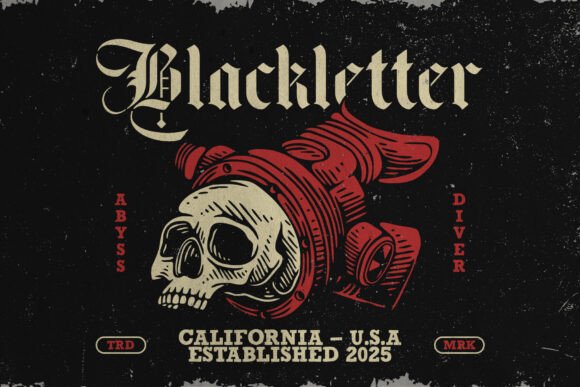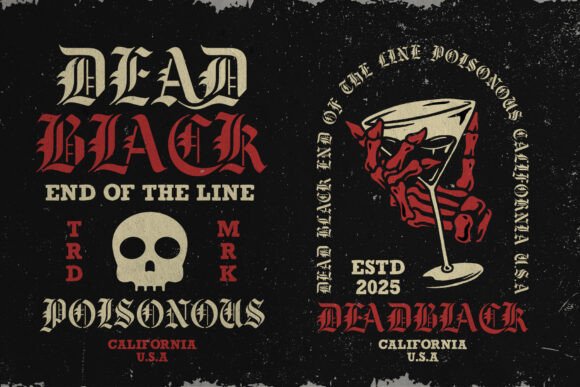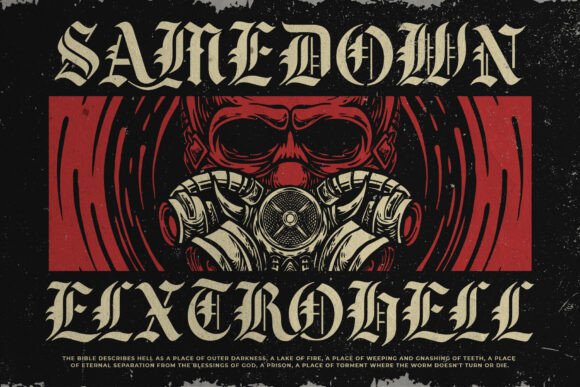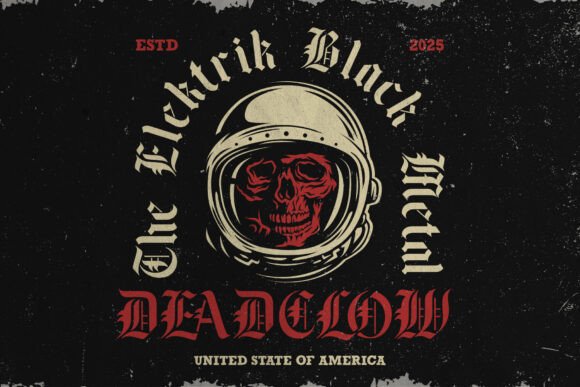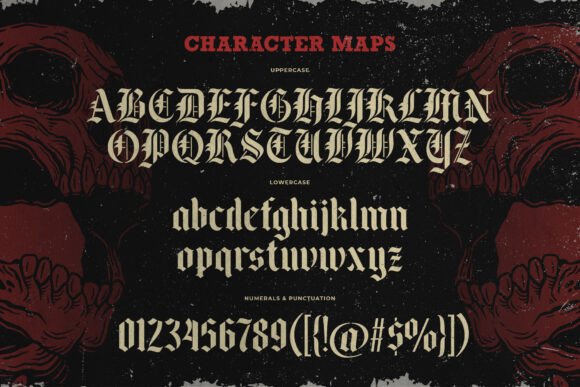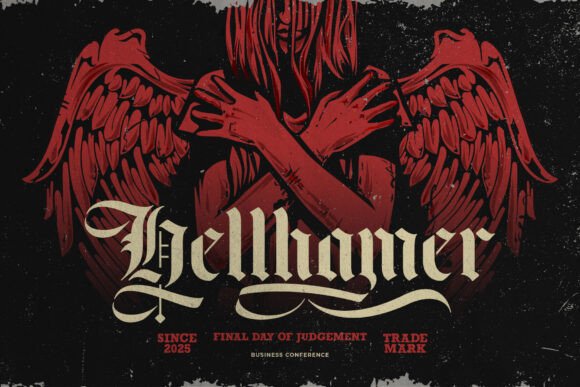
Unleash the Power of Black Face: A Bold Blackletter Stencil Typeface
In the world of typography, few fonts evoke the same level of drama and elegance as blackletter typefaces. Among these, Black Face stands out—a meticulously crafted blackletter stencil typeface that seamlessly blends historical sophistication with modern boldness. Designed for creators who dare to stand out, Black Face is the perfect choice for a variety of projects, from tattoos and branding to posters, album covers, and apparel.
A Brief History of Blackletter Typefaces
Blackletter typefaces have a rich history dating back to the Middle Ages. Characterized by their dramatic, ornate letterforms, these fonts were originally used for illuminated manuscripts and later became a staple of Gothic architecture and literature. Over time, blackletter typefaces evolved, influencing various design disciplines, including calligraphy, typography, and graphic design.
Today, blackletter typefaces continue to captivate designers and crafters with their unique aesthetic. Black Face, in particular, offers a fresh take on this classic style, combining the elegance of traditional blackletter fonts with the boldness of modern stencil typography.
What Makes Black Face Special?
Black Face is more than just a font—it’s a statement piece. Its distinctive letterforms are designed to grab attention, making it perfect for projects that require a bold, eye-catching aesthetic. Here are some key features that set Black Face apart:
- Meticulous craftsmanship: Each letterform in Black Face has been carefully crafted to ensure precision and elegance, blending historical authenticity with modern flair.
- Stencil design: The stencil design of Black Face adds a layer of versatility, making it suitable for a wide range of applications, from tattoos and branding to posters and apparel.
- Bold and elegant: Black Face strikes the perfect balance between boldness and elegance, making it ideal for designers who want to create striking, yet sophisticated designs.
Use Cases for Black Face
Black Face is an incredibly versatile font, suitable for a variety of projects and applications. Here are some use cases to inspire your creativity:
- Tattoos: The bold, stencil design of Black Face makes it perfect for tattoo designs that require a striking, yet elegant aesthetic.
- Branding: Use Black Face to create bold, eye-catching logos and branding materials that demand attention.
- Posters: Add a touch of drama and elegance to your posters with Black Face, ideal for advertising, events, or artistic projects.
- Album covers: Give your music project a bold, edgy look with Black Face, perfect for rock, metal, or hip-hop album covers.
- Apparel: Create striking, fashion-forward designs for t-shirts, hoodies, or hats with Black Face.
Tips for Working with Black Face
To get the most out of Black Face, here are some tips to keep in mind:
- Experiment with colors: Black Face looks great in bold, bright colors, but don’t be afraid to experiment with different color combinations to create unique effects.
- Play with textures: Add depth and interest to your designs by incorporating textures or patterns into your Black Face typography.
- Mix and match: Combine Black Face with other fonts or design elements to create striking contrasts and visual interest.
Black Face is a powerful, versatile font that offers a fresh take on traditional blackletter typography. With its bold, stencil design and meticulous craftsmanship, this font is perfect for creators who want to make a statement. Whether you’re designing tattoos, branding materials, posters, album covers, or apparel, Black Face is the perfect choice for projects that demand attention and elegance.